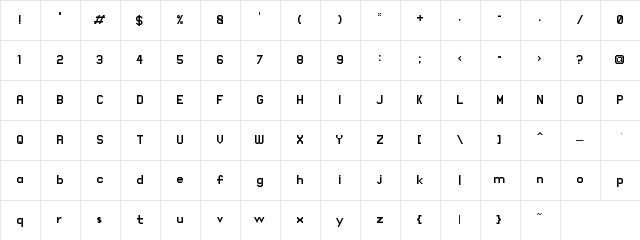
Newsfont Regular
| Designer | KarloNolasco |
Design Context for Newsfont Typeface
Newsfont takes a measured approach to typography — its balanced proportions and neutral character make it a reliable workhorse for both digital and print work.